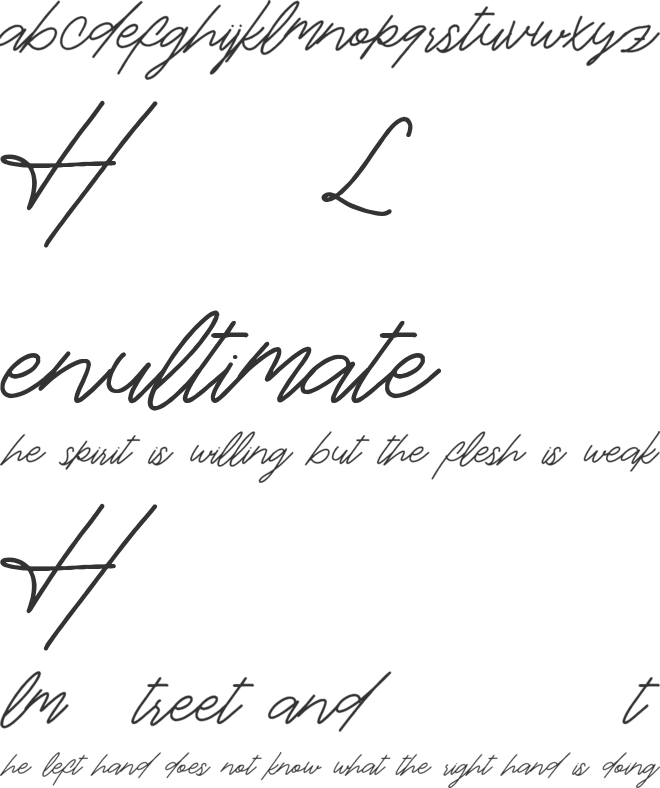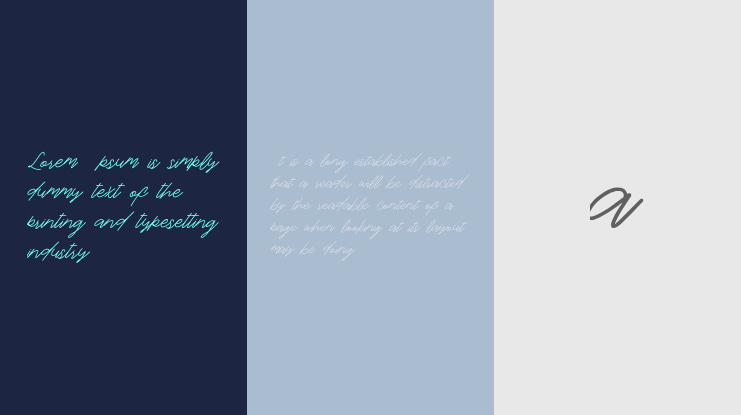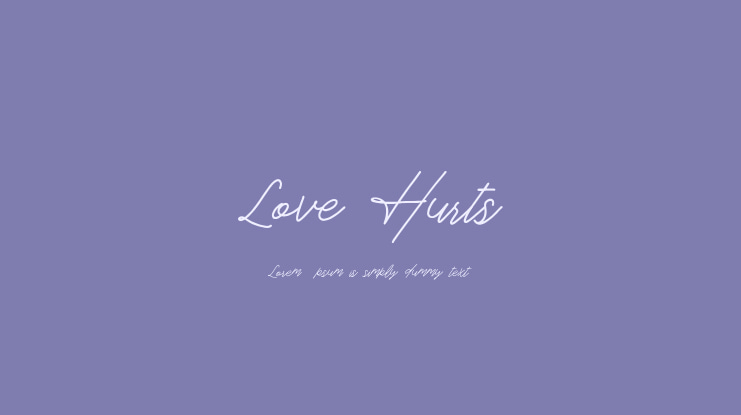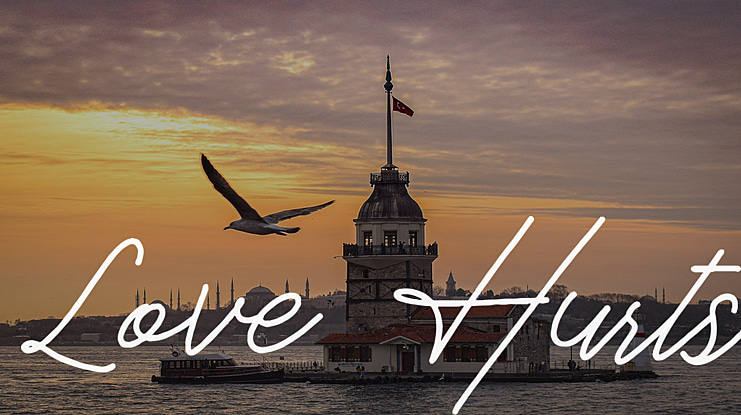
Love Hurts DEMO Font
Would you mind to say hello to Love Hurts? A versatile handwriting ballpoint style script font for your auto-chic branding. Perfectly fit for your pretty, sweet, cute, branding things. Easy usage just pair it with serif or sans serif font and you're officially awesome all the way!